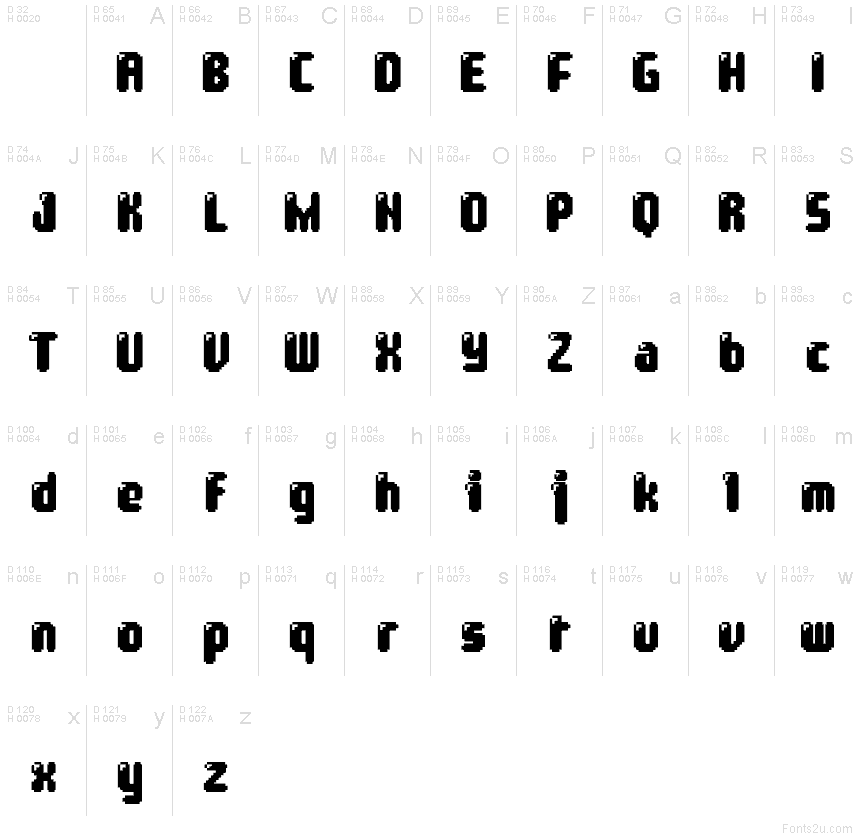
Maesto Regular Demo
Maesto font by Craft Supply Co. is a bold bitmap typeface that thrives in its pixelated, geometric design. With a retro aesthetic and digital influence, Maesto features clear and recognizable characters. The style of this blocky font gives it an overall legibility that is rare amidst typefaces as unique within this category.
The free pixel font can enhance the title of magazines, website headers, or book covers. Use it to execute branding projects for industries such as gaming or tech in business cards and logo designs. Choose Maesto for invitations related to arcade or tech events hosted at your educational institution or workplace!